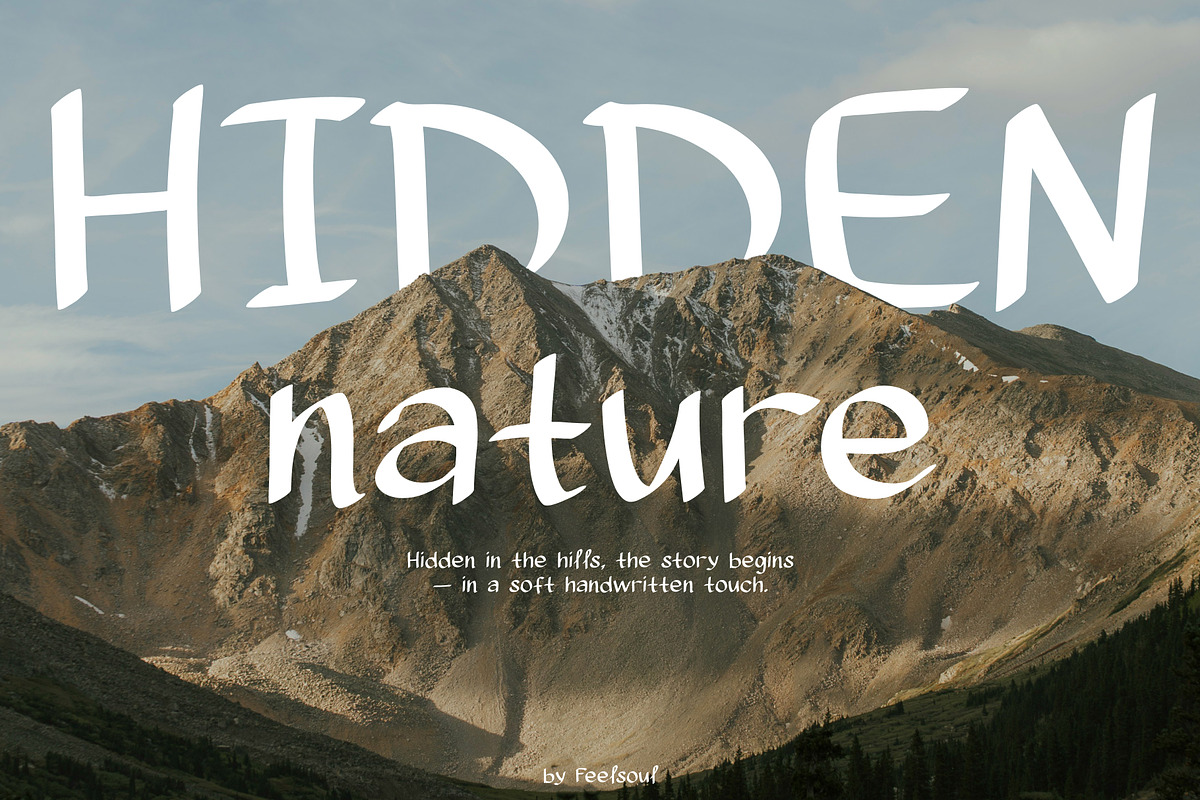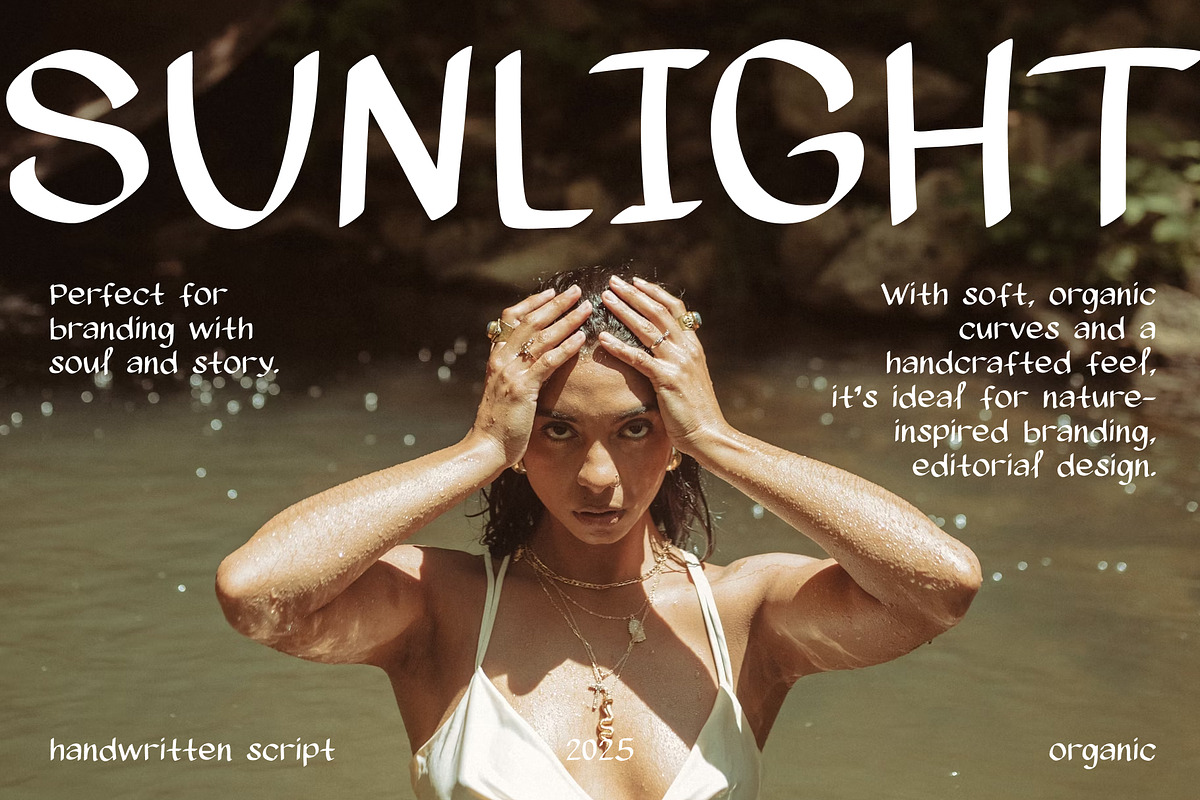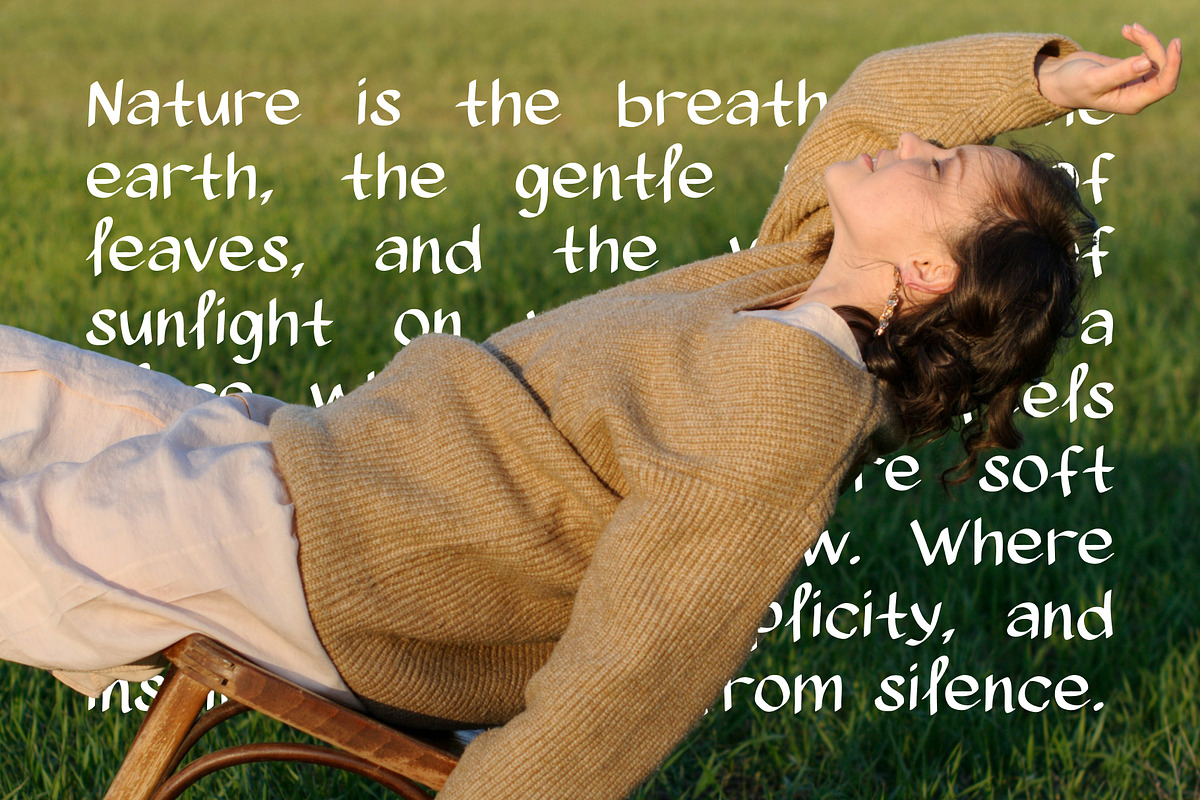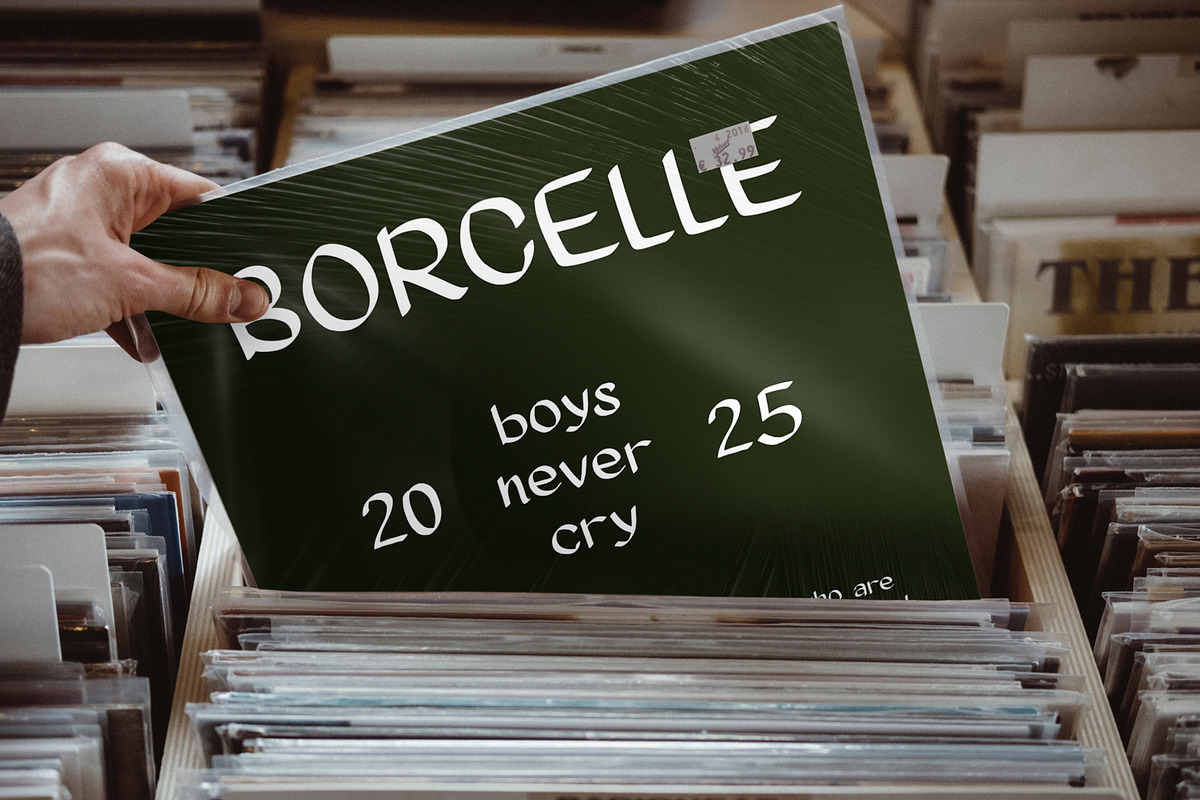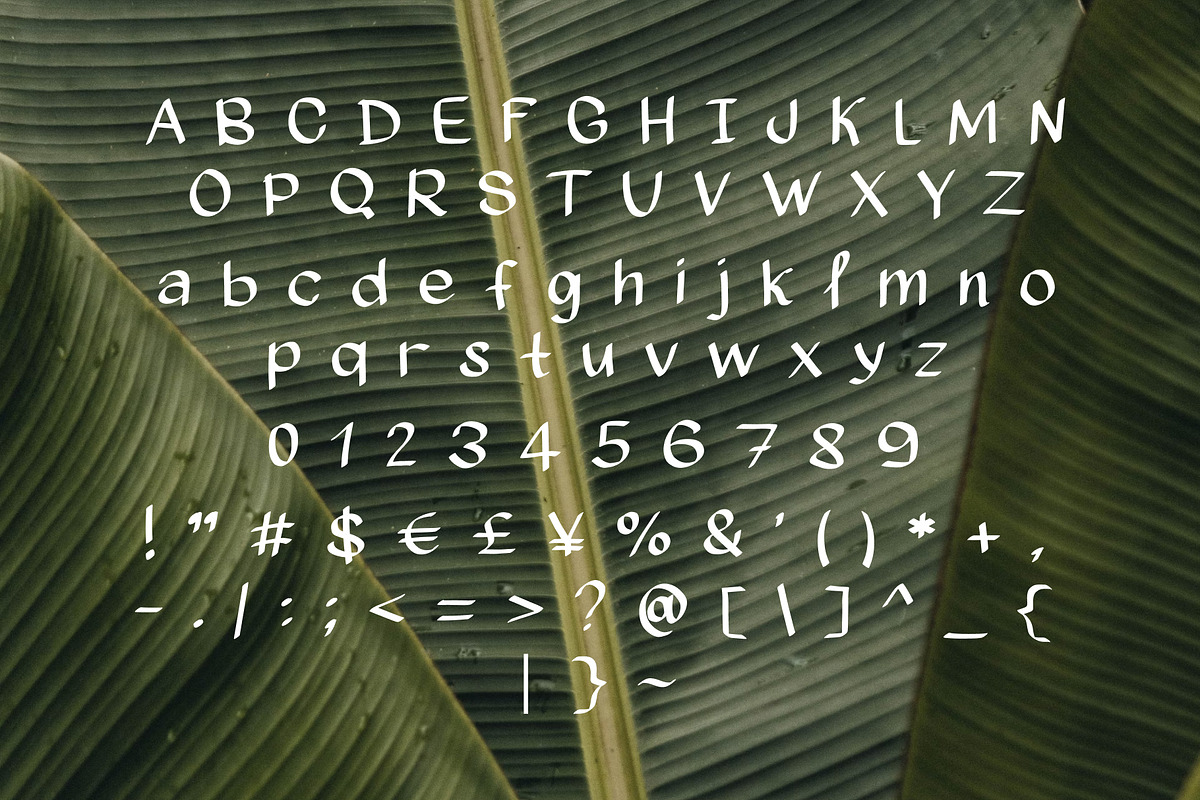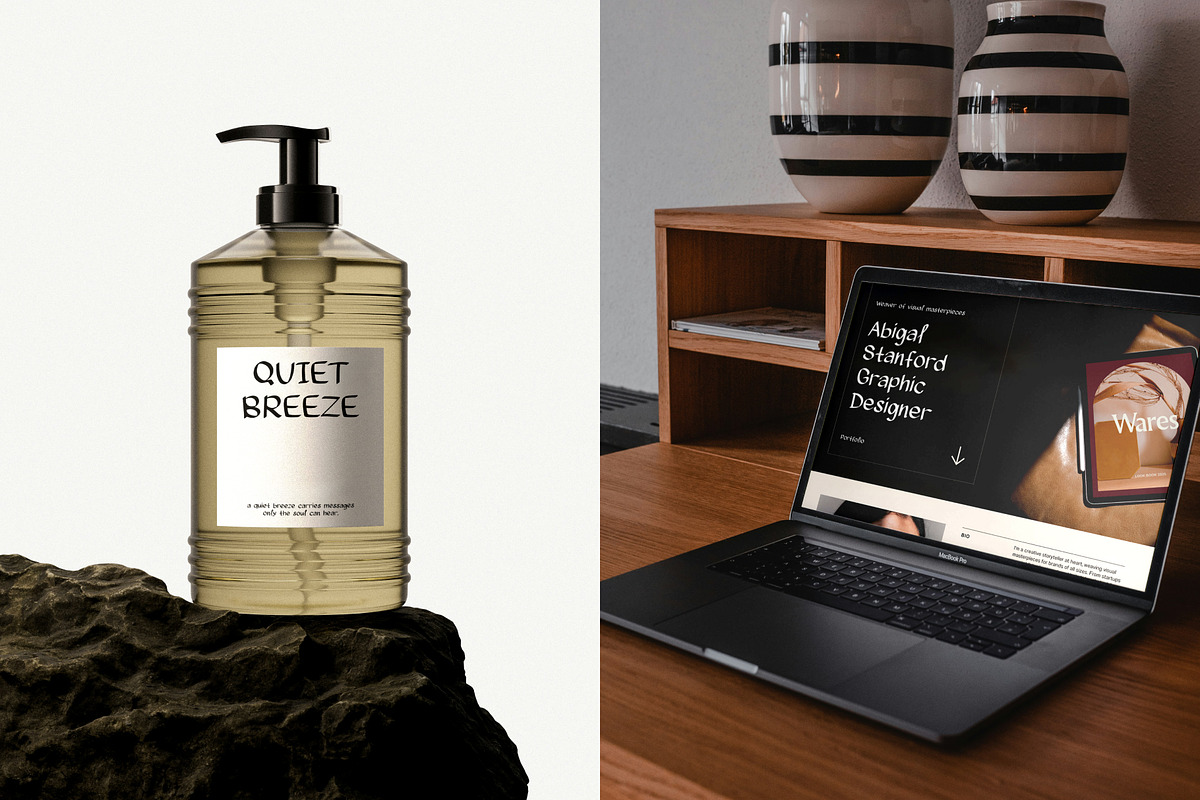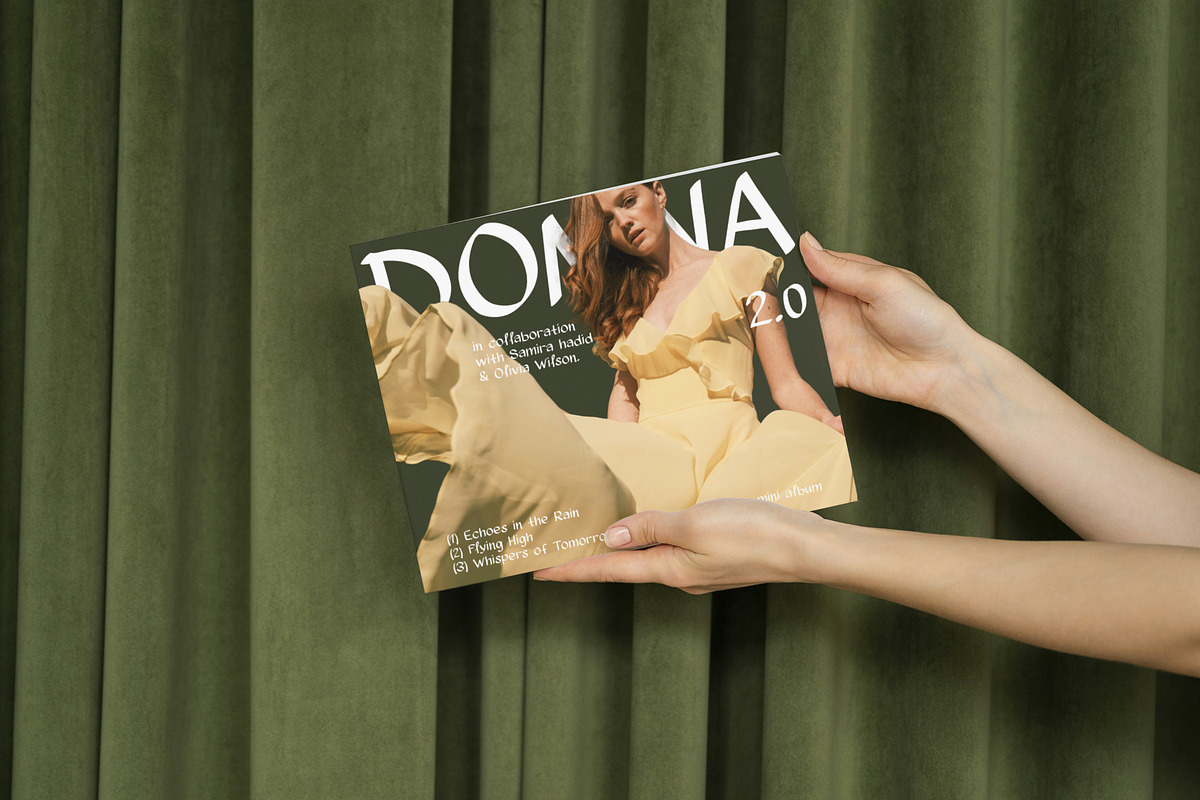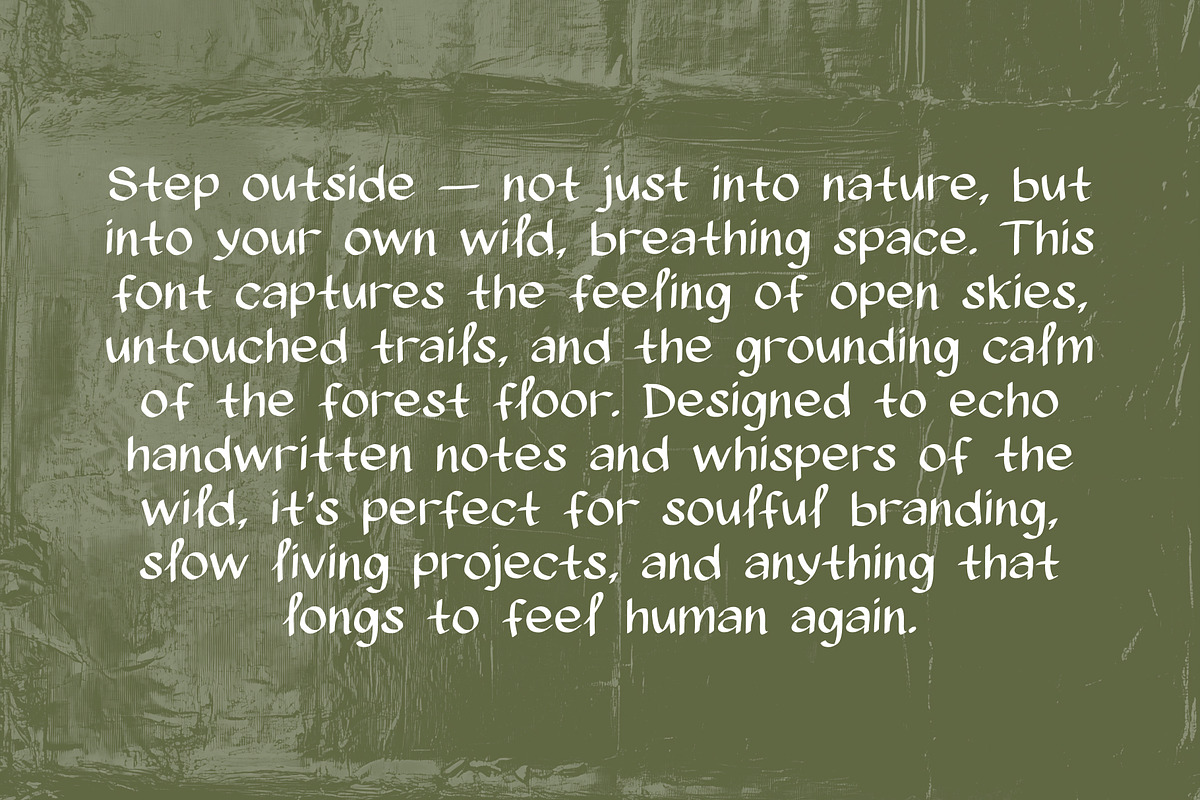
Hidden nature Handwritten Font
Hidden nature – Handwritten Font
Hidden nature is a handwritten font that captures the quiet magic of nature. Its smooth, organic strokes and imperfect lines echo the softness of handwritten notes and the calm rhythm of the wild.
Designed with outdoor-inspired branding and storytelling in mind, Hidden nature is perfect for wellness brands, sustainable packaging, nature-focused content, social media graphics, and heartfelt quotes.